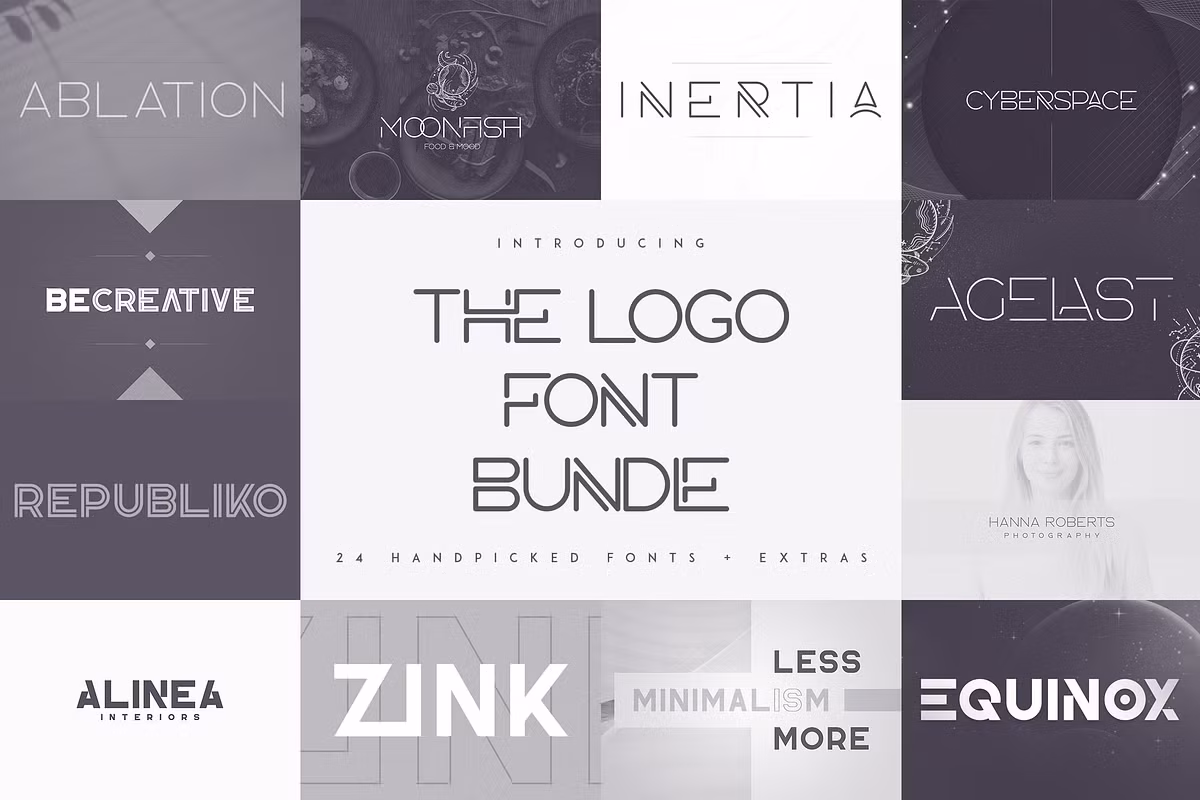
The Logo Font Bundle – 24 Fonts Free Download is an extensive collection of 24 versatile fonts designed to elevate your logo and branding projects. From sleek sans-serifs to elegant scripts and bold display fonts, this bundle covers a wide range of styles to help you craft a unique, professional identity for any business or personal brand.
With its wide variety of fonts, this bundle is perfect for logo design, brand identity, packaging, marketing materials, and even social media content. Each font has been crafted with precision to give your designs a polished, modern, and memorable look.